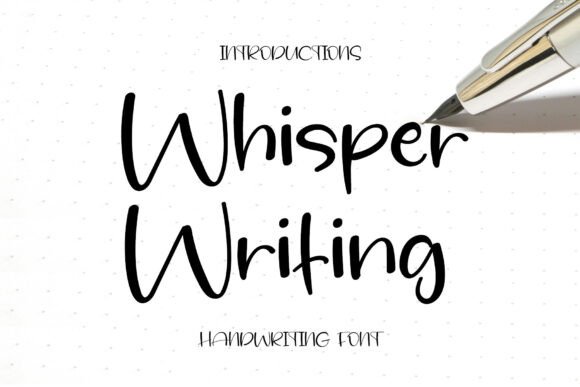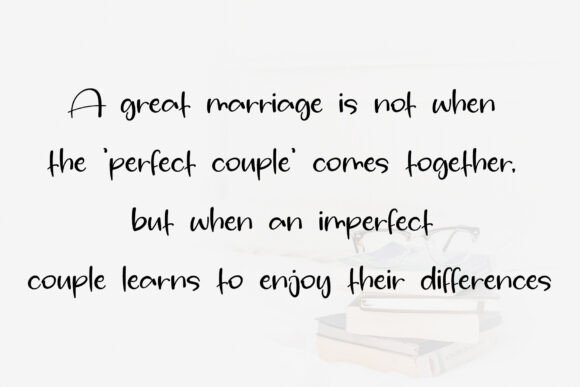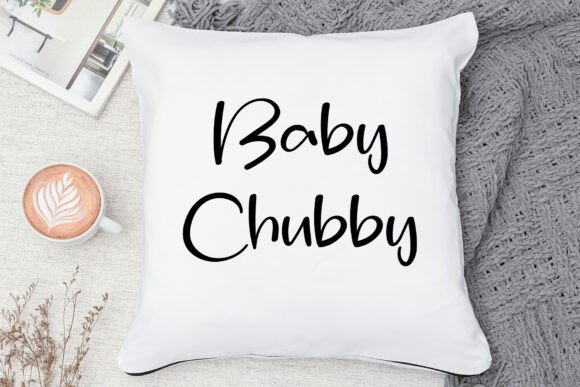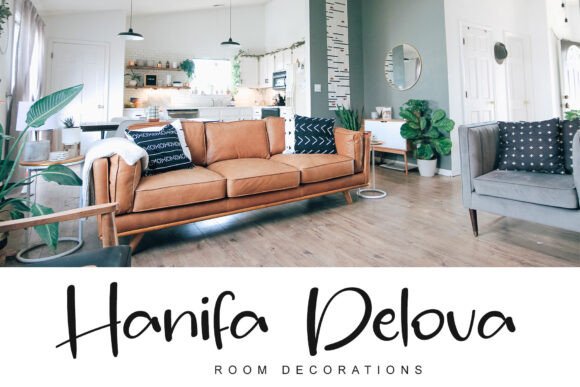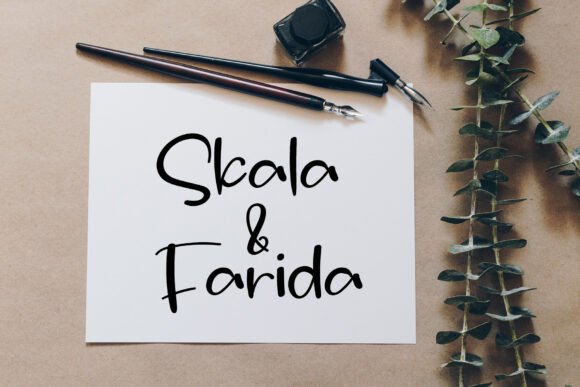
Whisper Writing Font
Whisper Writing come in a wide variety of styles, including bold, decorative, futuristic, handwritten, retro, and more. They are often characterized by exaggerated letterforms, intricate details, and high contrast to grab attention and enhance visual appeal.